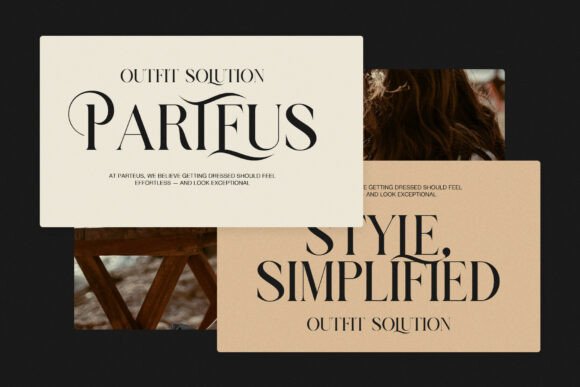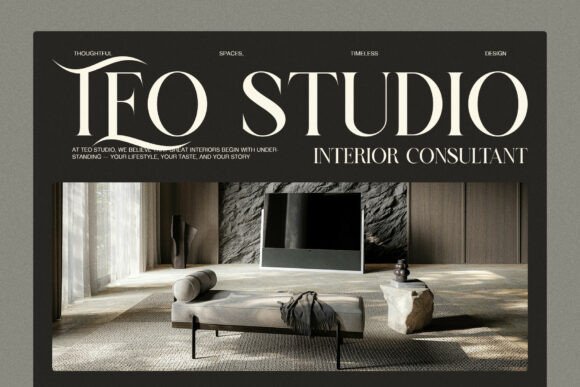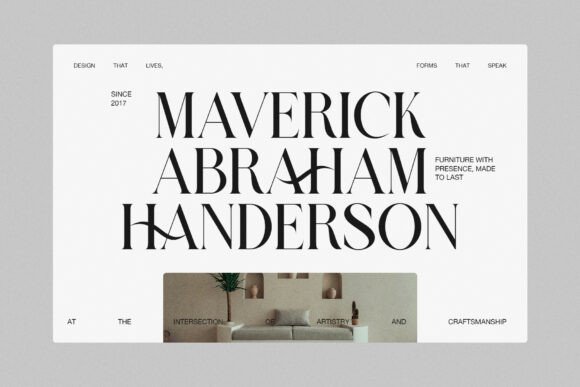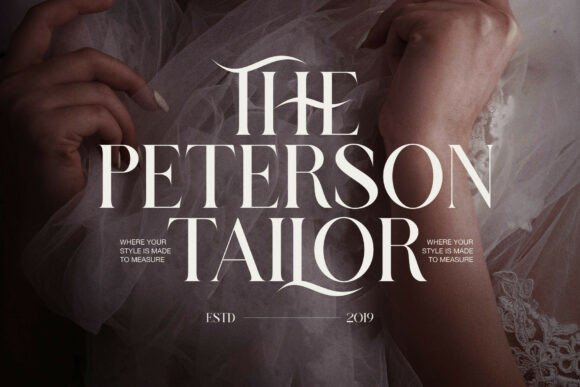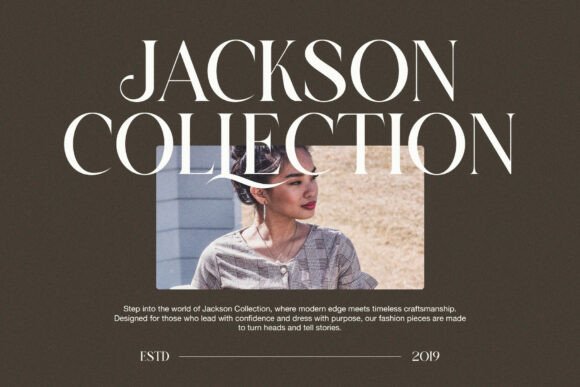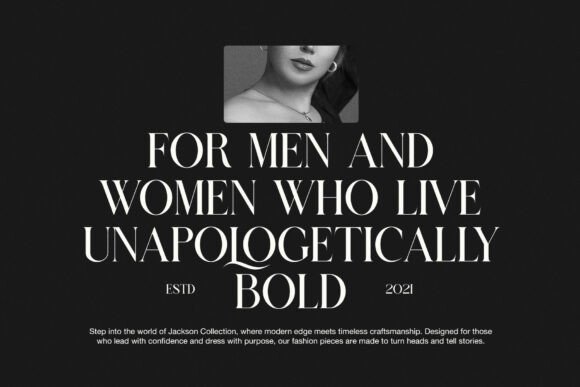
Introduction to Reathe Font
Have you ever been in the midst of a creative project, pouring your heart and soul into every detail, only to realize that the right font can make all the difference? The perfect font can elevate your design from good to great, and that’s exactly what the Reathe Font does. As a modern serif typeface, Reathe Elegant Serif Font adds a timeless and graceful touch to your designs, offering a classic feel with a fresh, updated style that works beautifully across many design needs.
Whether you’re a seasoned designer or just starting out, the Reathe Font is a valuable resource that can help you deliver professional, polished results every time. Its clean lines and smooth curves create a refined and confident look in every layout, making it perfect for branding, fashion labels, product packaging, and social media content.
Key Features of Reathe Font
- Comes in 4 different font styles, each with its unique characteristics, making it perfect for a variety of design needs.
- Supports a wide range of languages, making it a great choice for multilingual projects.
- Perfect for use in logos, branding, typography, and other creative projects where a high-quality font is required.
Honest Review: Reathe Font
I recently stumbled upon the Reathe Font while searching for a free design resource for a creative project. I must say, I was impressed by its high quality and unique style.
Here are some aspects that work well with this font:
- ✨ Unique and elegant design that adds a touch of sophistication to any project.
- ✨ Excellent legibility, making it perfect for both digital and print use.
- ✨ Transparent background option allows for easy customization and integration with other design elements.
- ⚠️ Limited font styles and weights, which might not be ideal for projects requiring a wide range of options.
- ⚠️ Not suitable for bold or dramatic headlines, as it may get lost in the design.
Overall, I’m impressed with the Reathe Font, and I would recommend it for designers looking for a high-quality, elegant font for their creative projects. Just be aware of its limitations, and use it accordingly.
Common Use Cases for Reathe Font
Reathe Font is perfect for a variety of creative projects, including:
1. Branding and logos.
2. Infographics and data visualizations.
3. Social media graphics and posts.
4. Print materials, such as business cards and brochures.